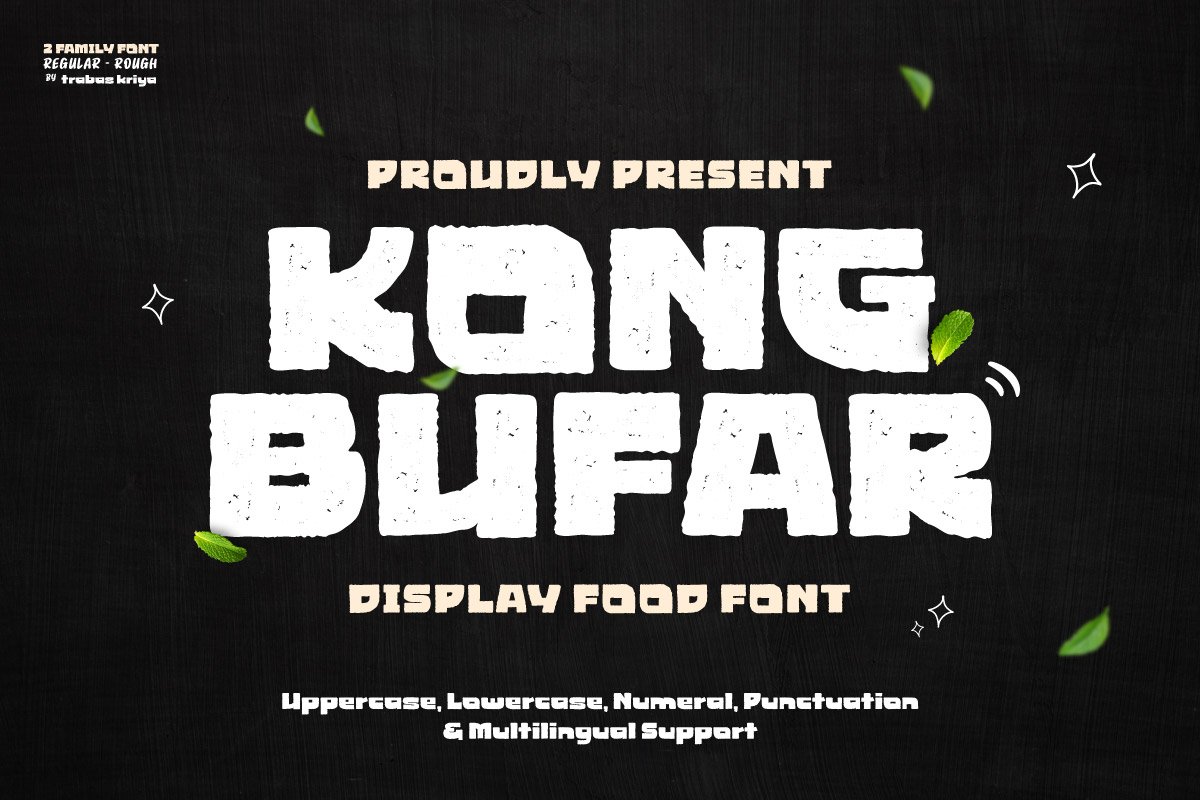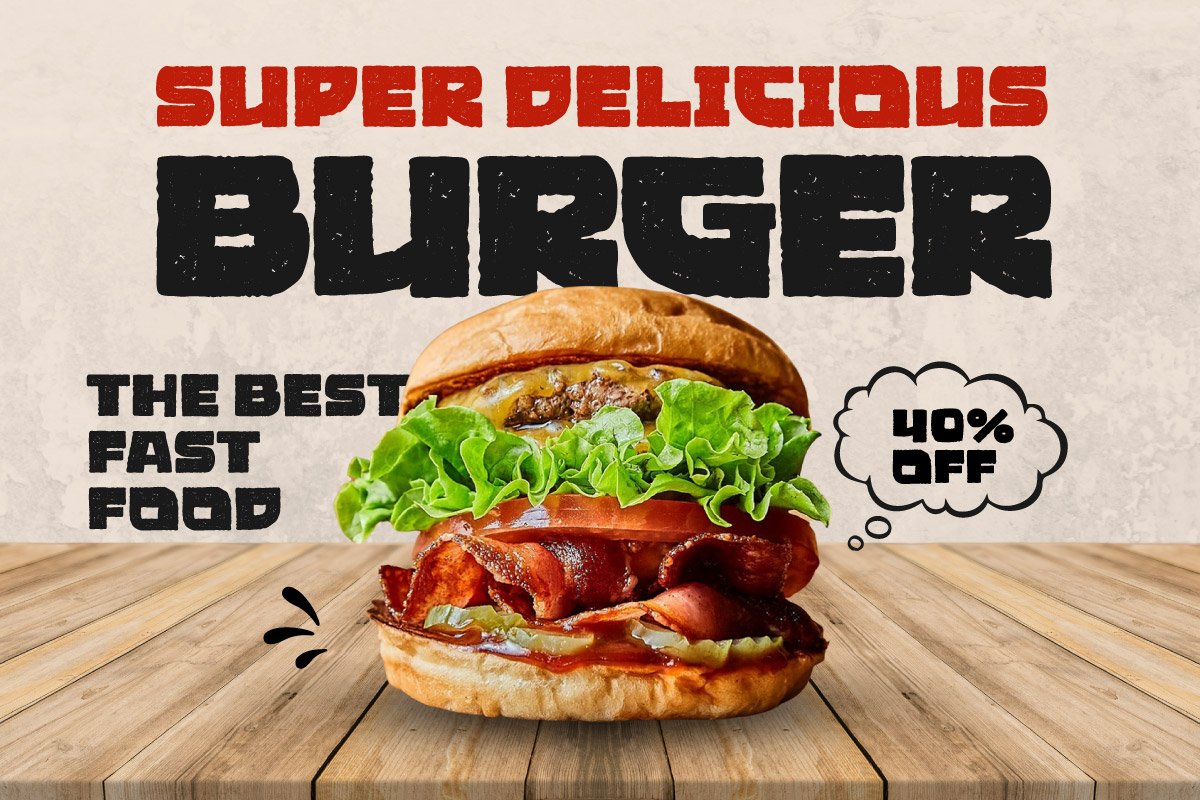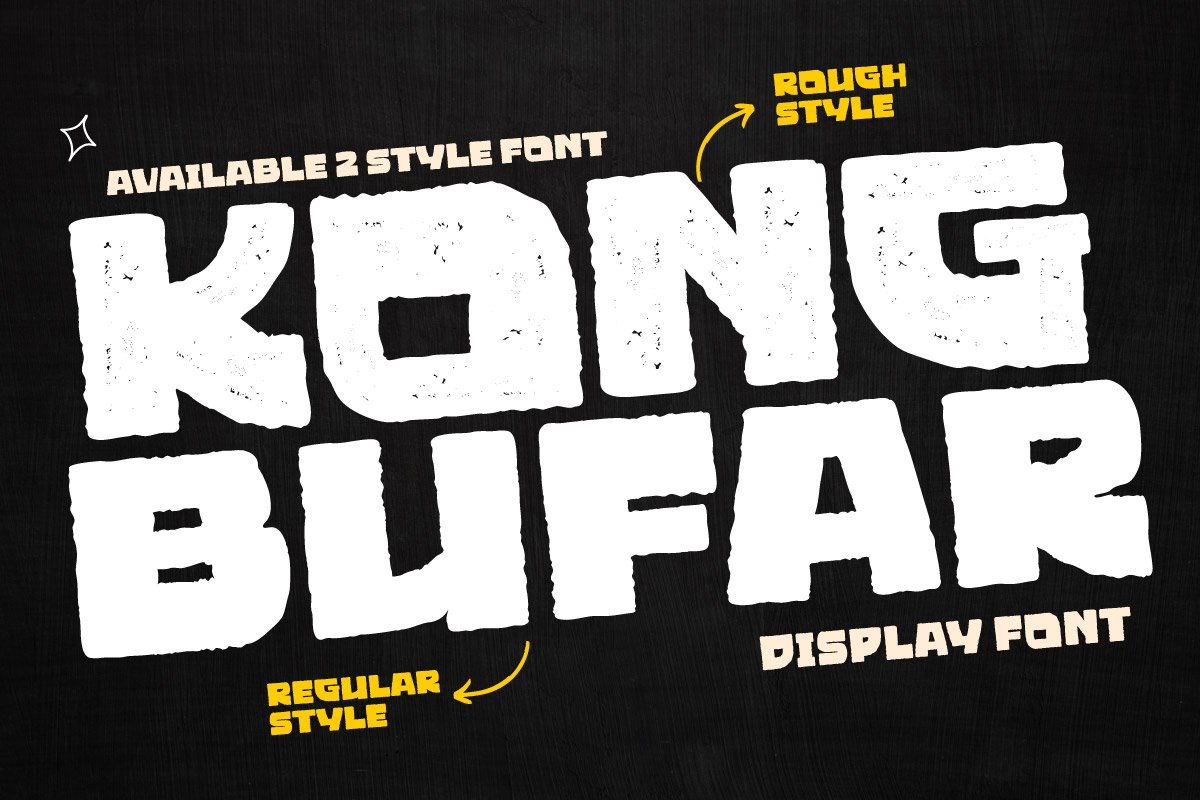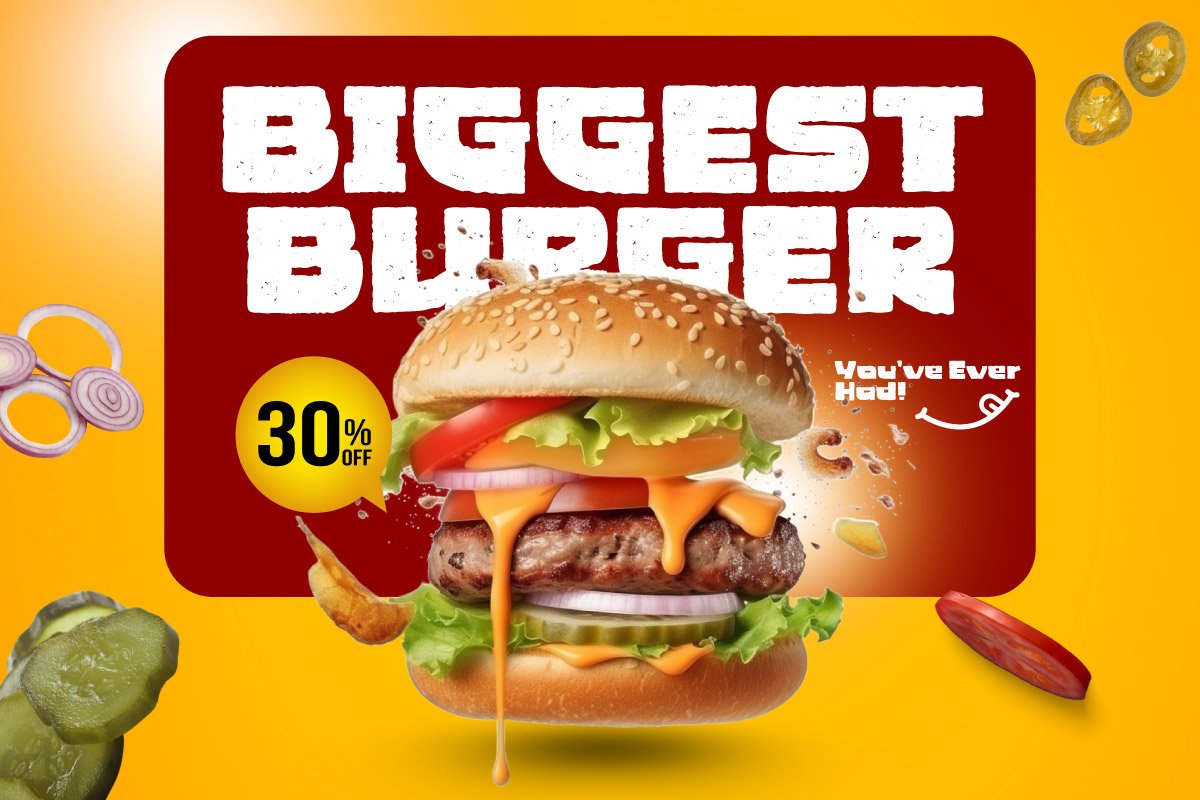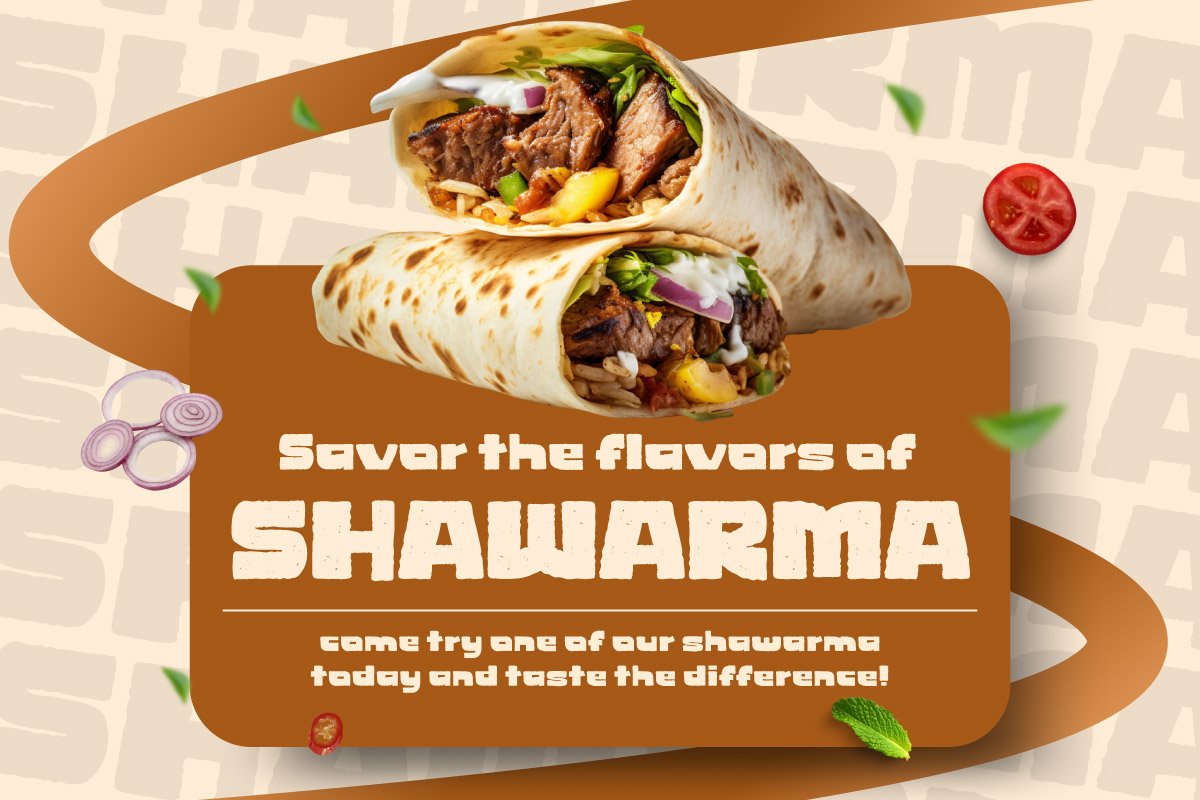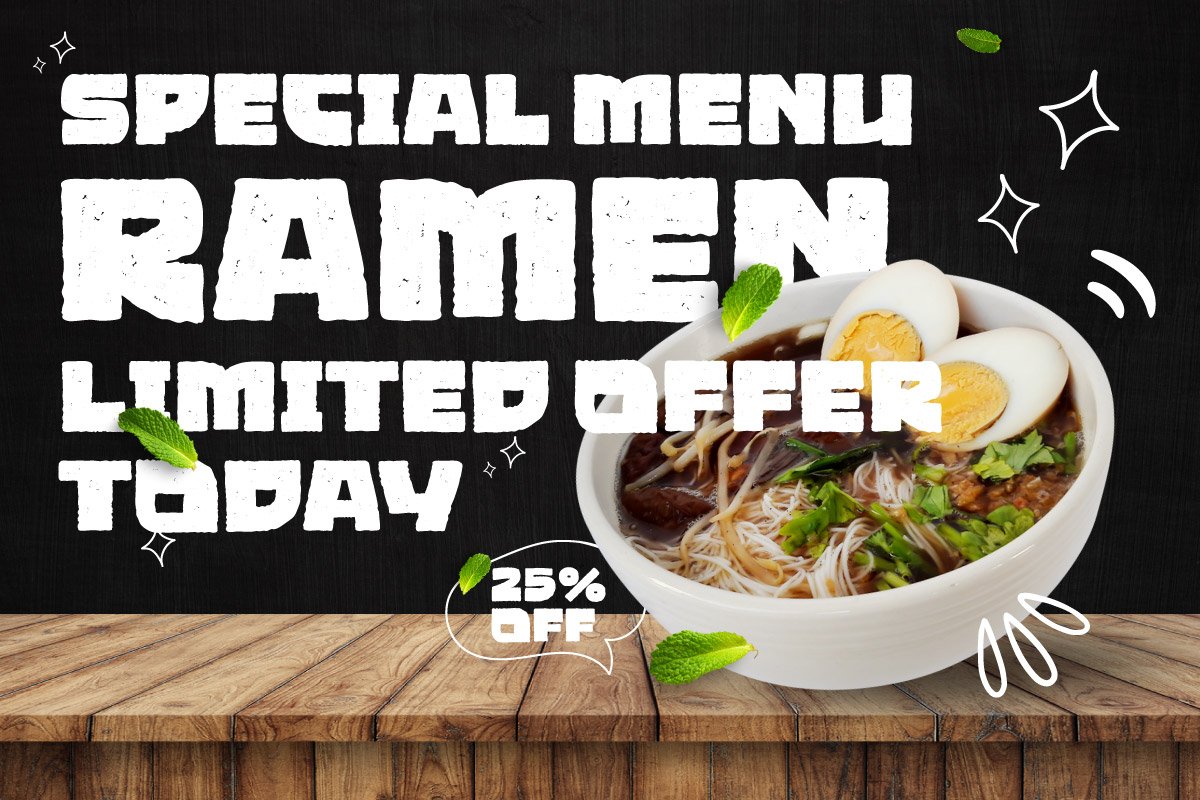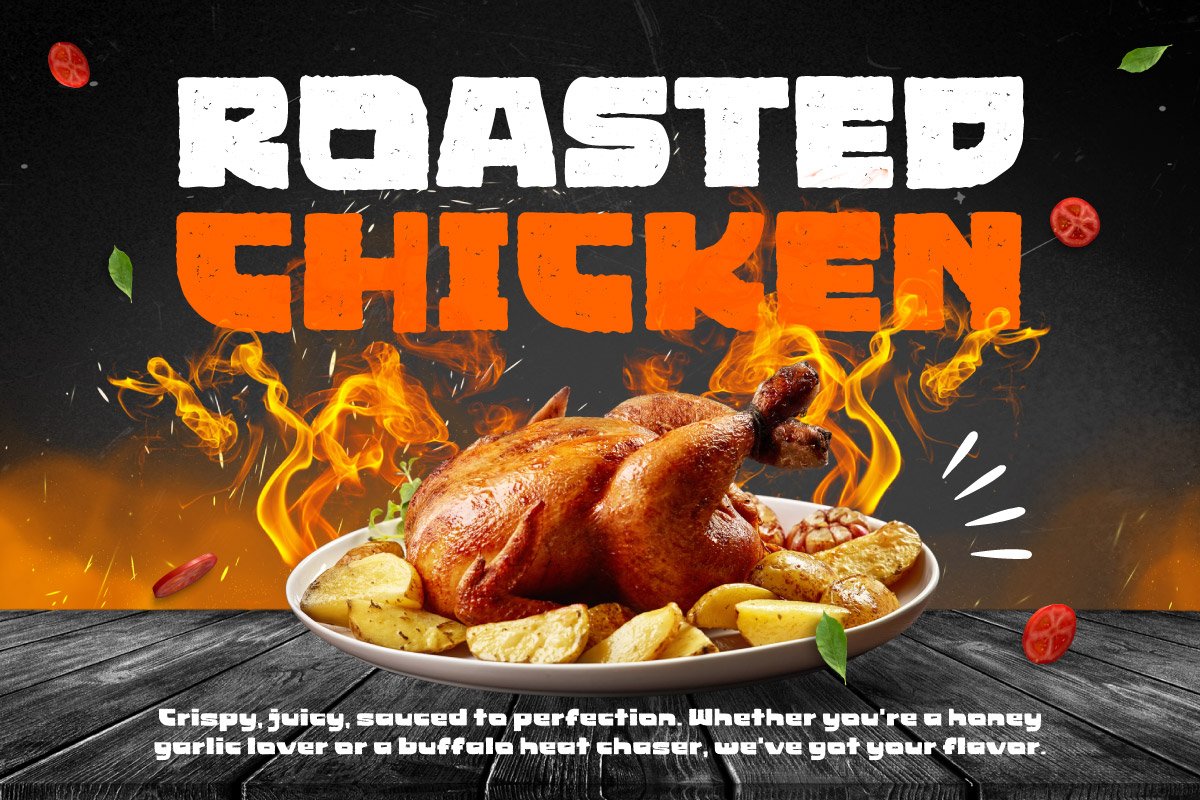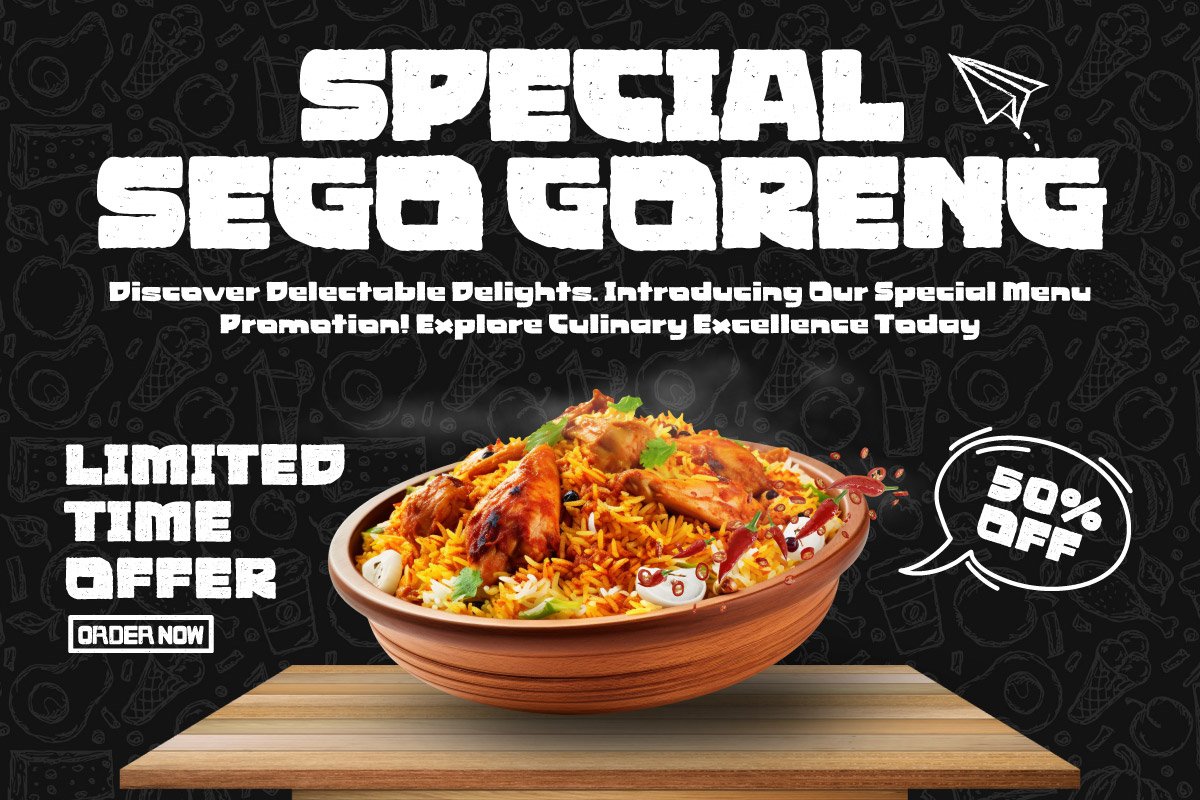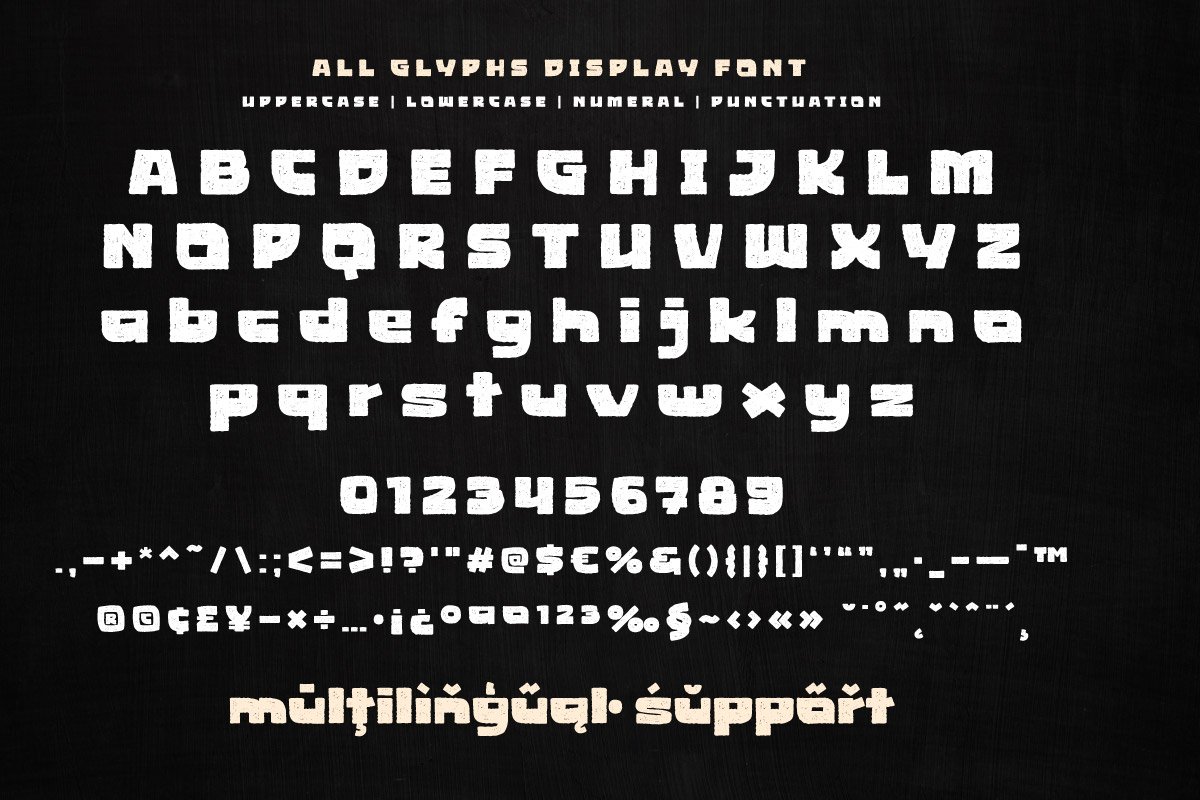
Kong Bufar – Display Food Font
Kong Bufar is a bold display font crafted to bring flavor and personality into every food-related design. With chunky letterforms and a slightly rough texture, it captures the energy and excitement of culinary experiences—like that first bite of your favorite dish. Strong yet playful, this font is perfect for food brands that want to stand out with confidence.
From restaurant logos, food packaging, menus, street food promotions, to social media content, Kong Bufar delivers a fresh and appetizing look. The Regular style offers a clean, solid appearance, while the Rough version adds a handcrafted feel that enhances authenticity and warmth.
More than just typography, Kong Bufar is a visual identity that sparks appetite and emotion. It ensures your designs are not only eye-catching but also full of character, making every word taste as good as it looks.